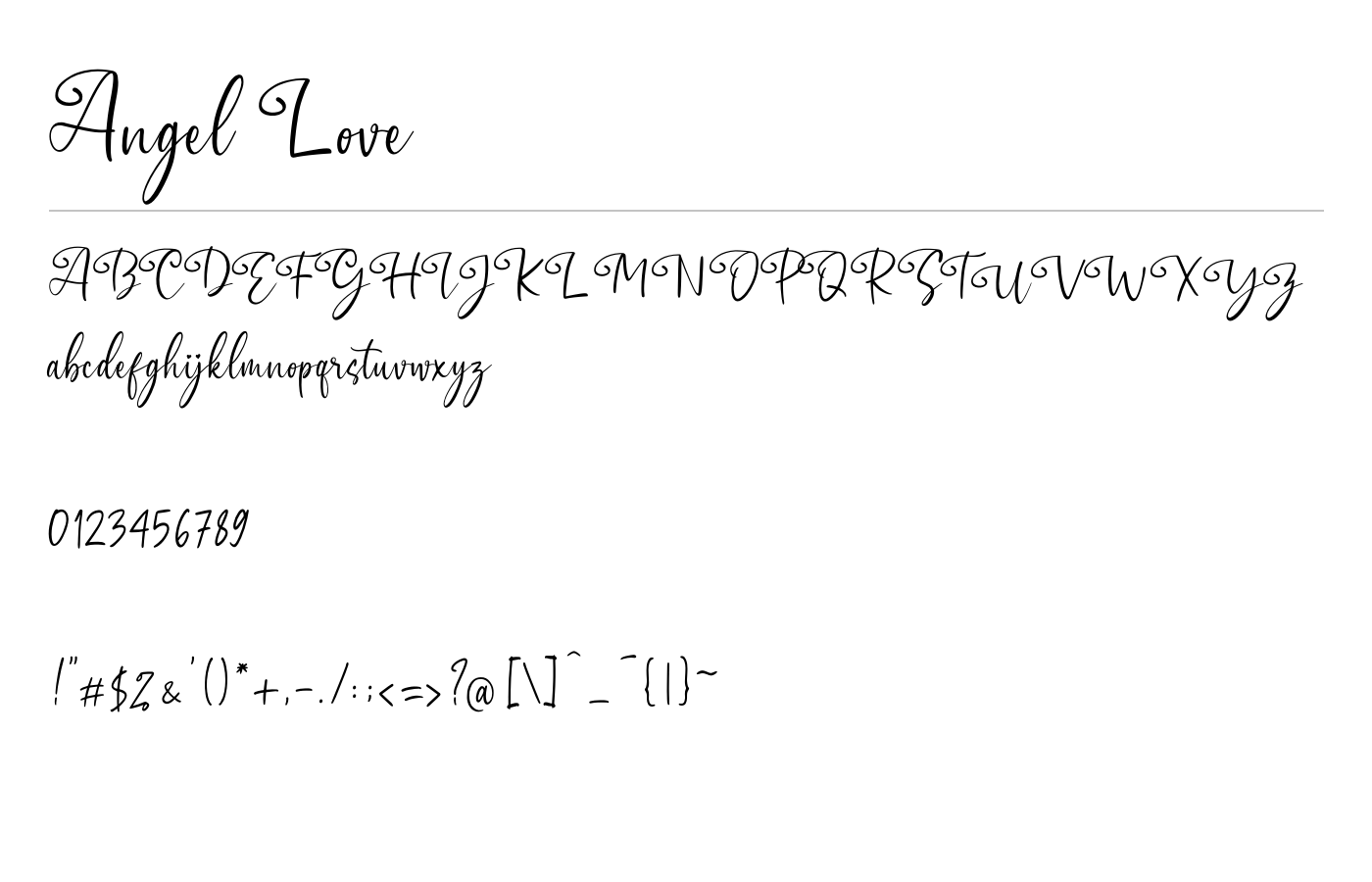
Angel Love is a delicate, handwritten script font that combines elegance with a playful charm. Its thin, flowing strokes and graceful loops create a light, airy feel, making it perfect for romantic or feminine branding, invitations, and decorative headlines where a personal, stylish touch is desired. This font works beautifully in designs that seek a soft yet sophisticated look.
Angel Love Font
About Angel Love Font